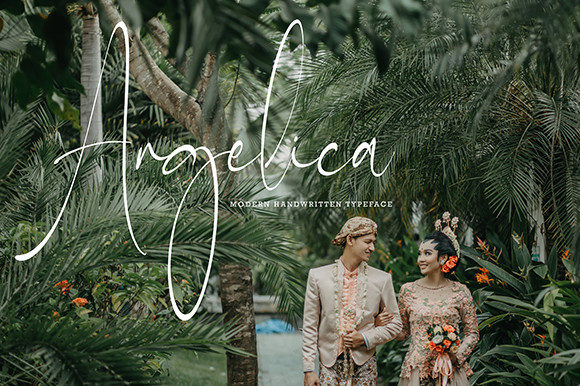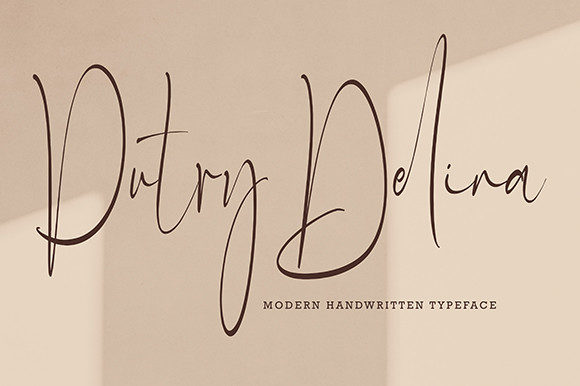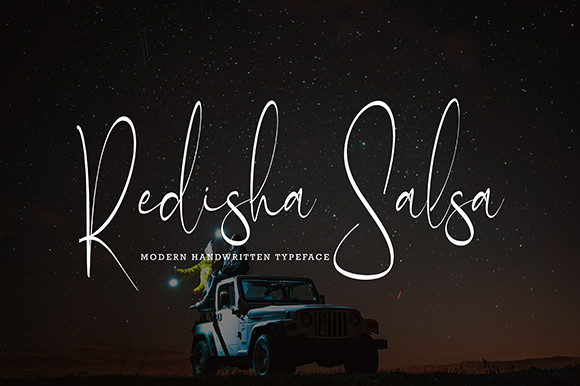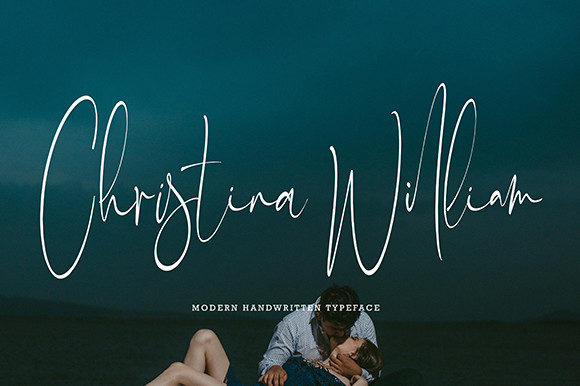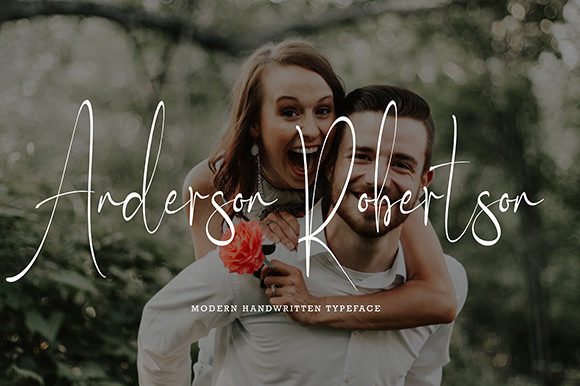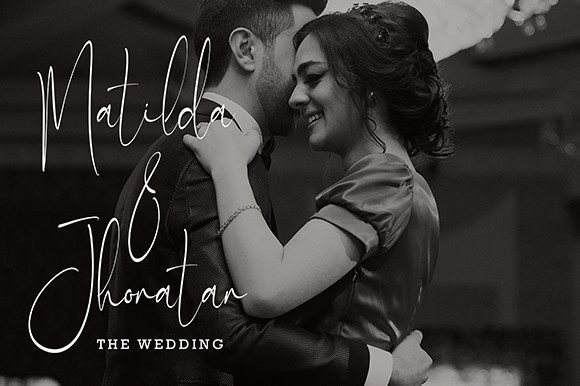
Introduction to Putry Delina Font
Have you ever been in the midst of a creative project, pouring your heart and soul into every detail, only to feel like something is missing? That’s when I discovered the Putry Delina Font – a game-changing design resource that added a touch of luxury to my project and took it to the next level.
As a designer, I can attest to the importance of having high-quality fonts at your disposal. The right font can make all the difference in conveying the tone and atmosphere of your work. And that’s exactly what the Putry Delina Font offers – a unique feel and stunning impact that will elevate any design project.
Key Features of Putry Delina Font
- Unique, hand-drawn design elements that add a personal touch to any project
Honest Review: Putry Delina Font
- ✨ Elegant and modern design aesthetic, perfect for contemporary projects.
- ✨ Great for use in headings, titles, and body text, providing a consistent look across different elements.
- ⚠️ Limited font family options, which might not be ideal for projects requiring a wide range of font styles.
- ⚠️ May not be suitable for complex or professional projects that require a high level of customization.
Overall, the Putry Delina Font is a great addition to any designer’s toolkit, especially for personal or creative projects. Its elegant design and high-quality fonts make it a valuable resource for any design project. Just be aware of its limitations, and you’ll be able to make the most of this free download.
How to Use Putry Delina Font
The Putry Delina Font is suitable for various creative projects, including graphic design, digital art, and publishing. You can use it for creating posters, flyers, business cards, or any other design that requires a high-quality, unique font.
Yes, the Putry Delina Font is designed to be high-quality and suitable for printing. With its clear, legible characters and smooth curves, it’s perfect for use in business cards, brochures, and other printed materials where a professional, elegant look is desired.